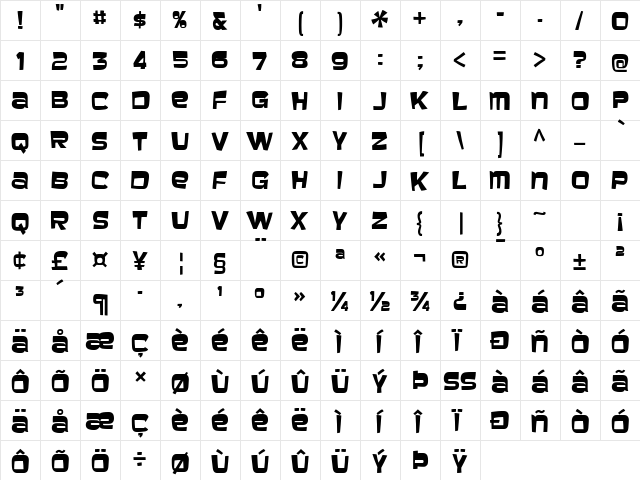
Baveuse Regular
| Foundry | Larabie Fonts |
Design Context for Baveuse Typeface
Baveuse offers clean, dependable letterforms without strong stylistic allegiance, making it a practical choice for designers who need flexibility.
Pro Tip: Pair Baveuse with a font of contrasting weight or personality to build a more expressive typographic hierarchy.